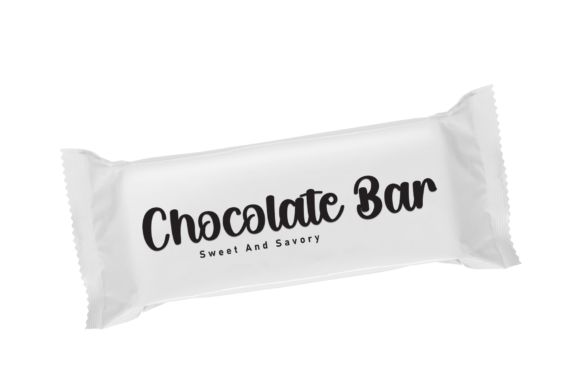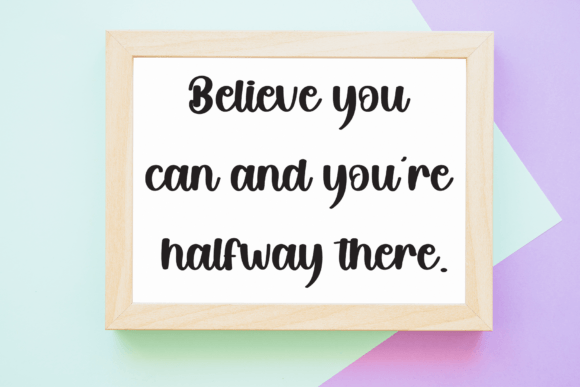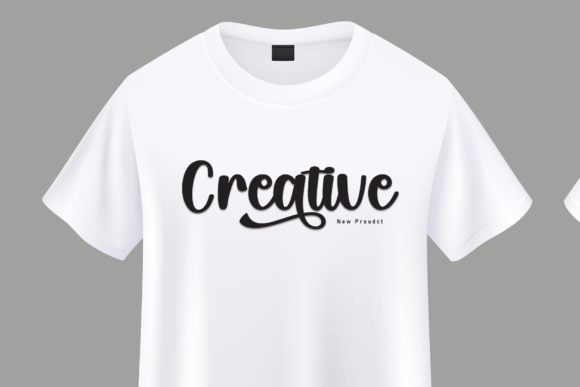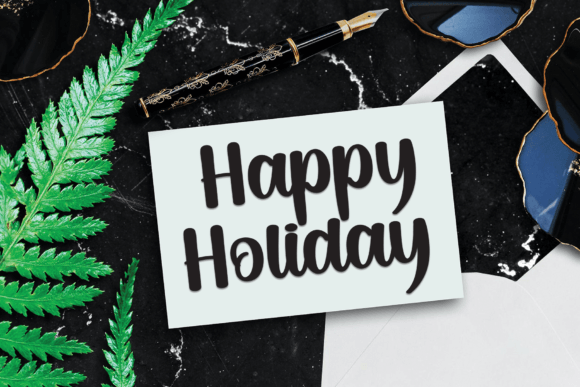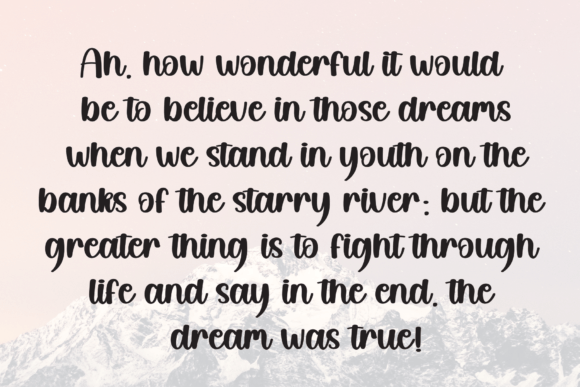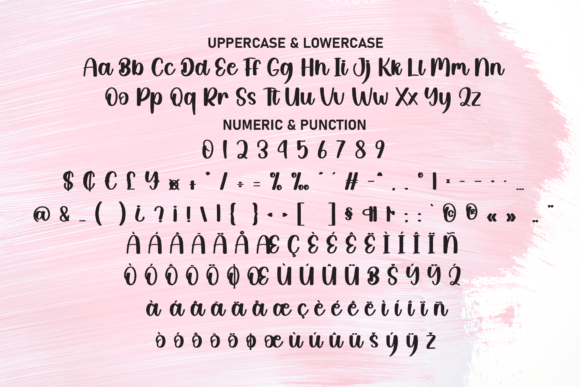
Introducing Brush Barbie Font: The Ultimate Choice for Whimsical Designs
Are you a designer or crafter looking for a font that can add a touch of warmth and friendliness to your projects? Look no further than Brush Barbie Font! This charming handwritten font is designed to bring a sense of whimsy and playfulness to your designs, making it perfect for invitations, packaging, social media graphics, and more.
The Characteristics of Brush Barbie Font
Brush Barbie Font is a beautiful, smooth, and flowing script font that is characterized by its playful curves and inviting charm. The font features:
• Smooth, flowing strokes that give it a natural and effortless look
• Playful curves and rounded edges that add to its whimsical feel
• A warm and friendly tone that makes it perfect for designs that require a personal touch
• A versatile design that can be used for a wide range of projects, from formal invitations to social media graphics
Uses of Brush Barbie Font
Brush Barbie Font is a versatile font that can be used for a variety of design projects, including:
• Invitations: Whether you’re designing wedding invitations, birthday party invites, or baby shower announcements, Brush Barbie Font is the perfect choice. Its playful and whimsical design will add a touch of warmth and friendliness to your invitations.
• Packaging: Add a personal touch to your product packaging with Brush Barbie Font. Its smooth and flowing strokes will make your products stand out on store shelves.
• Social Media Graphics: Use Brush Barbie Font to create eye-catching social media graphics that will engage your followers. Its playful design makes it perfect for creating graphics for Instagram, Facebook, and Twitter.
• Crafting: If you’re a crafter, Brush Barbie Font is a great addition to your design toolkit. Use it to create beautiful and unique craft designs, such as handmade cards, gift tags, and more.
Why Choose Brush Barbie Font?
So why should you choose Brush Barbie Font for your design projects? Here are just a few reasons:
• Unique Design: Brush Barbie Font has a unique and distinctive design that will set your projects apart from the rest.
• Easy to Read: The font is easy to read, even at small sizes, making it perfect for designs that require a lot of text.
• Versatile: Brush Barbie Font can be used for a wide range of design projects, from formal to informal.
Tips for Using Brush Barbie Font
Here are a few tips for using Brush Barbie Font in your design projects:
• Pair it with other fonts: Brush Barbie Font looks great when paired with other fonts. Try pairing it with a bold sans-serif font for a contrasting look.
• Experiment with colors: Brush Barbie Font looks great in a range of colors. Experiment with different colors to find the one that works best for your design.
• Use it for headings: Brush Barbie Font is perfect for headings and titles. Use it to add a touch of whimsy to your designs.
Brush Barbie Font is a charming handwritten font that is perfect for designers and crafters looking to add a touch of warmth and friendliness to their projects. Its smooth, flowing strokes and playful curves make it a great choice for invitations, packaging, social media graphics, and more. With its versatile design and high-quality format, Brush Barbie Font is a great addition to any design toolkit.